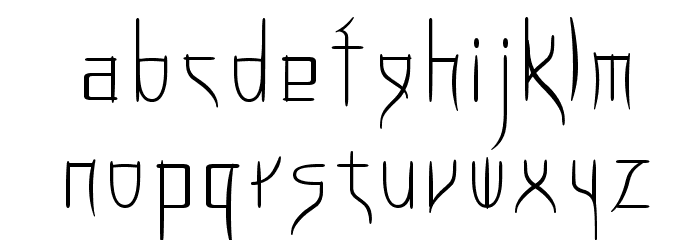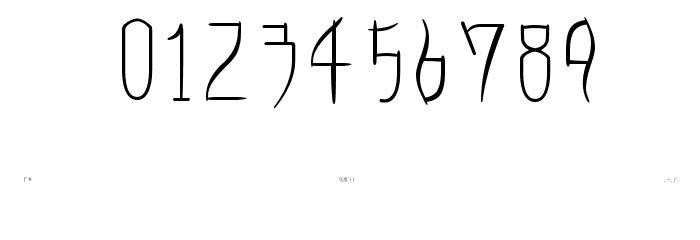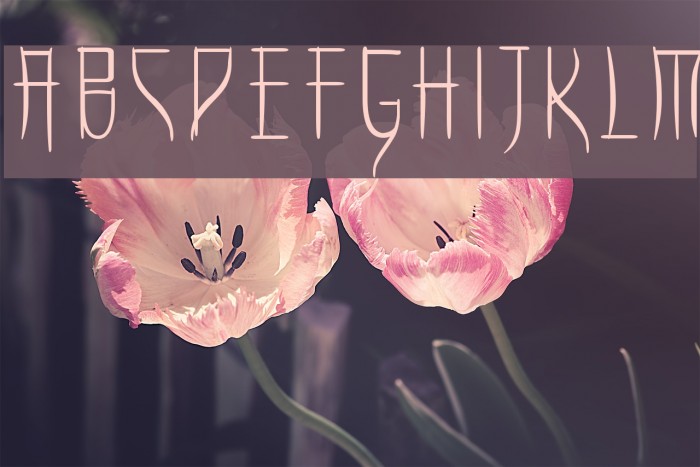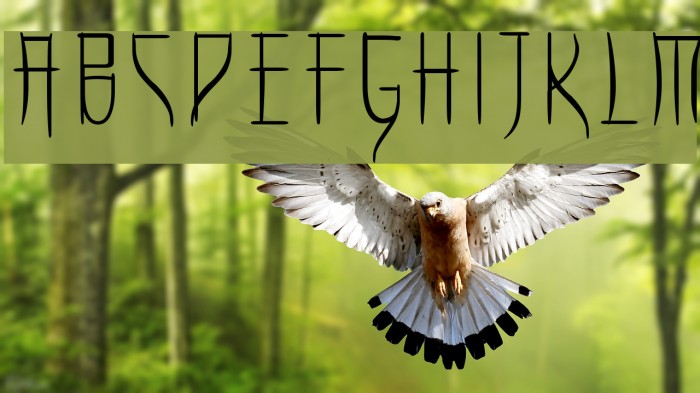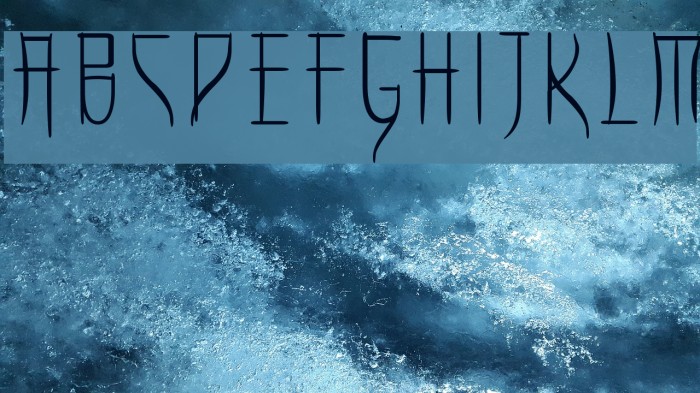
This font features a unique and artistic design with elongated, narrow characters that exhibit a modern and slightly futuristic aesthetic. The strokes are thin and sharp, giving it a sleek appearance. The uppercase letters have a distinctive angularity, while the lowercase letters maintain a consistent style with subtle curves. Numbers are designed to match the overall theme, with a similar slender and pointed look. Special characters are integrated seamlessly, maintaining the font's cohesive style. This font's distinctive character shapes make it stand out, ideal for creative and modern design projects.
A modern, artistic font with elongated, narrow characters and sharp strokes.